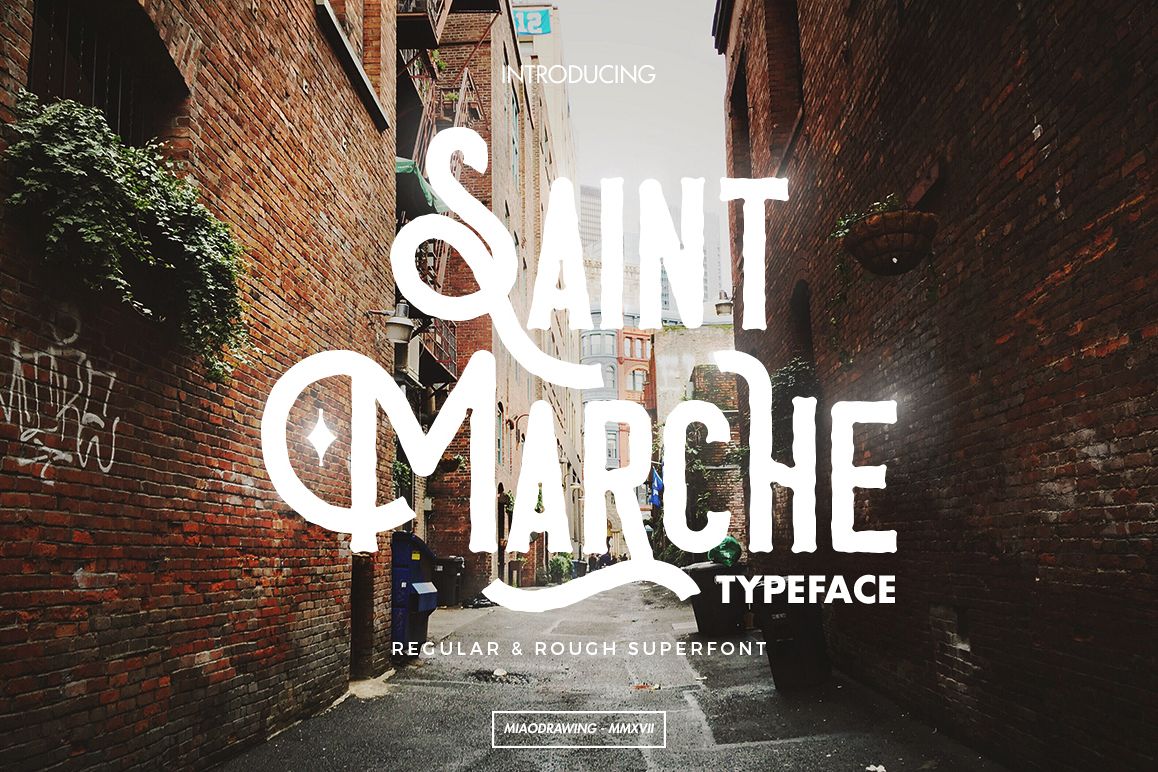
Saint Marche Typeface
Saint Marche Regular
Saint Marche Rough
Saint Marche Typeface is handmade classic vintage mixed up with
modern touch display typeface. See classy vintage and modern typography
with Regular and Rough style. Suitable for logo, letterhead, posters,
shirt, flyer, or any design requirements.
Saint Marche Features :
• Numerals & Punctuations
• Accents (Multilingual Characters)
OpenType Features :
• Fraction
• Standard Ligatures
• SS01, SS02, SS03
• Special Characters
There are 2 style : Regular & Rough and also
300++ gylphs ( Multilingual Support ) inside including Stylistic
Alternates, Ligatures, Special Characters, etc. OpenType features with
Stylistic Alternates, Stylistic Set, Special Characters in some
characters that you can mix and match any letters to fit your design. To